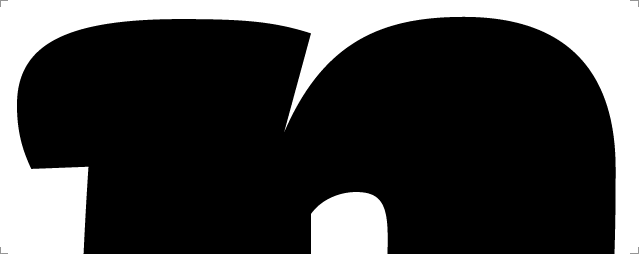
Sauna was developed between 1999 and 2002. The starting point for the design was the inflamed desire to create an extremely round and heavy display font which would be sexy! The round forms seem even rounder because the type also contains sharp corners and straight lines which create strong contrast. During Sauna's development, lighter weights were added for small sizes, making the Sauna family a flexible and cohesive typeface. Since its release in 2002 the Sauna family has been upgraded and expanded a couple of times, making sexiness available for present-day needs.